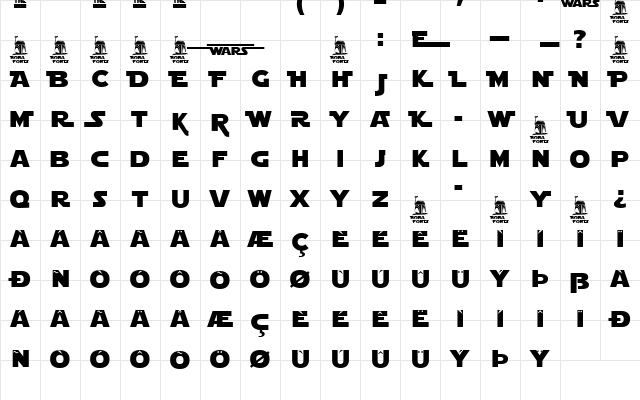
Star Jedi Logo DoubleLine2 Regular
Design Context for Star Jedi Logo DoubleLine2
Star Jedi Logo DoubleLine2 is a composed and adaptable typeface that performs quietly and consistently across a wide range of design contexts.